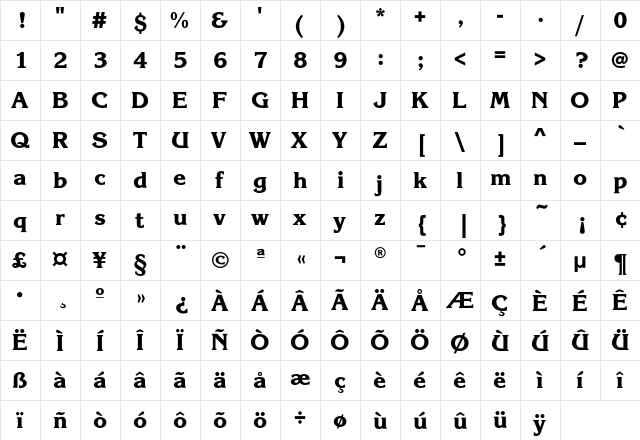
KorinnaEF-ExtraBold Regular
Design Context for KorinnaEF-ExtraBold Typeface
KorinnaEF-ExtraBold offers clean, dependable letterforms without strong stylistic allegiance, making it a practical choice for designers who need flexibility. The heavy weight commands attention and anchors typographic hierarchies.